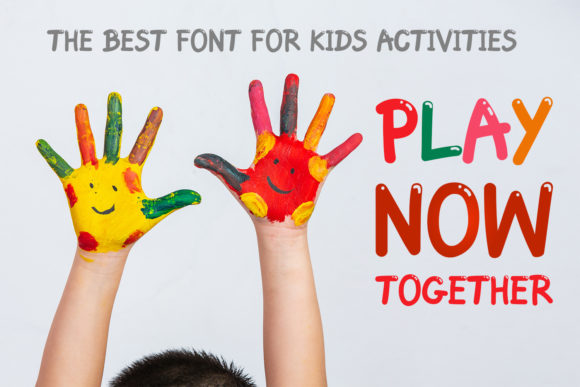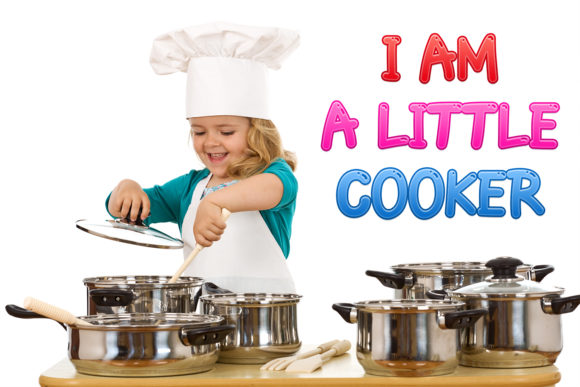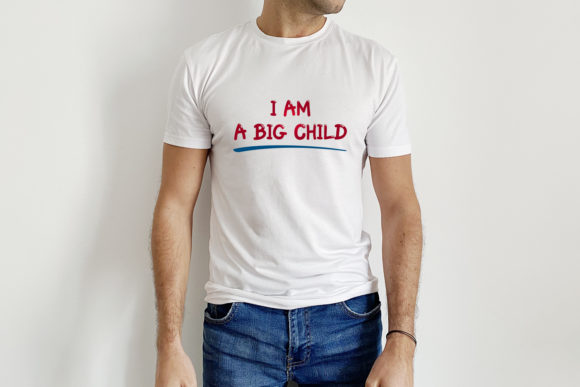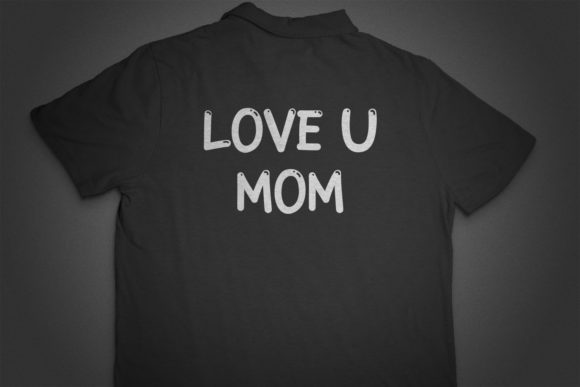
Introduction to Kids Balloon Font
Do you remember the joy of creating handmade cards for your loved ones as a child? The excitement of watching your imagination come to life, the satisfaction of seeing a smile on someone’s face, and the pride of knowing you made something special with your own hands? As a designer, you might be looking for a way to recapture that magic in your creative projects. That’s where the Kids Balloon Font comes in – a delightful, handwritten font that embodies the spirit of childhood wonder.
With its playful, whimsical style, the Kids Balloon Font is the perfect design resource for adding a touch of authenticity to your projects. Whether you’re working on a kids’ activity sheet, a school project, or a creative campaign for a brand that caters to young audiences, this font is sure to bring a smile to their faces.
Key Features of Kids Balloon Font
- Unique, playful design perfect for creative projects and design resources.
- High-quality font with transparent background, ideal for use on images and graphics.
- Includes a range of balloon-themed characters, including letters, numbers, and symbols.
- Perfect for use in children’s party invitations, birthday decorations, and other creative projects.
Honest Review: Kids Balloon Font
I recently stumbled upon the Kids Balloon Font while searching for a fun and playful design resource for a creative project. As a designer, I was excited to try it out and see how it would work in different contexts.
- ✨ The transparent background option allows for seamless integration with other design elements.
- ✨ The high quality of the font ensures that it looks great in print and digital formats.
- ⚠️ Some of the balloon designs may not be suitable for more formal or professional projects.
Overall, I was impressed with the Kids Balloon Font. It’s a great addition to any designer’s toolkit, especially for those working on creative projects that require a fun and playful touch.
– Add a touch of whimsy to your presentations and documents with the Kids Balloon Font.
To get the most out of the Kids Balloon Font, experiment with different font sizes, colors, and arrangements to create visually appealing designs.
The Kids Balloon Font is ideal for:
- Children’s party invitations and decorations.
- Education and learning materials.
- Marketing campaigns targeting a younger audience.
The Kids Balloon Font is available in high resolution, making it suitable for use in a variety of design contexts, from digital displays to print materials. The font is also available with a transparent background, allowing designers to easily combine it with other design elements.